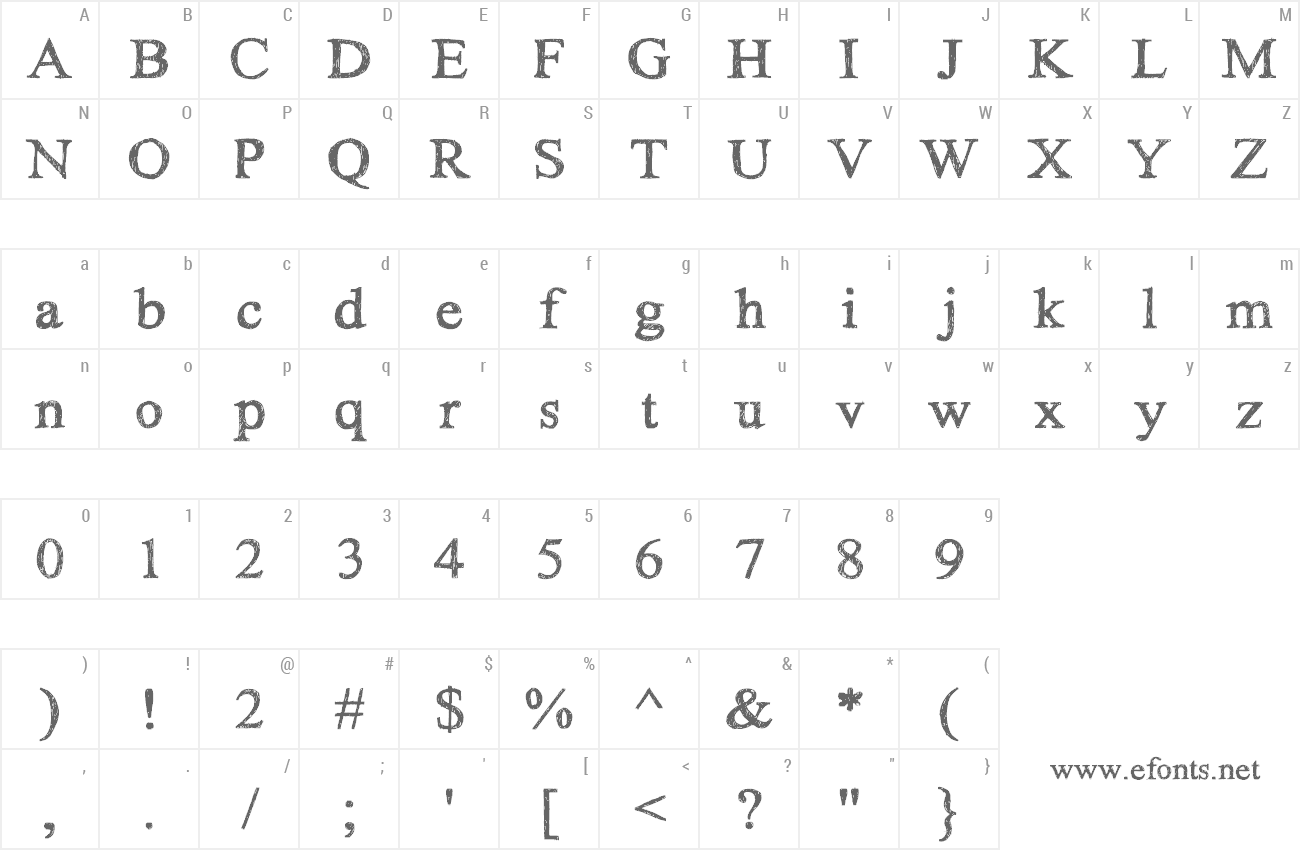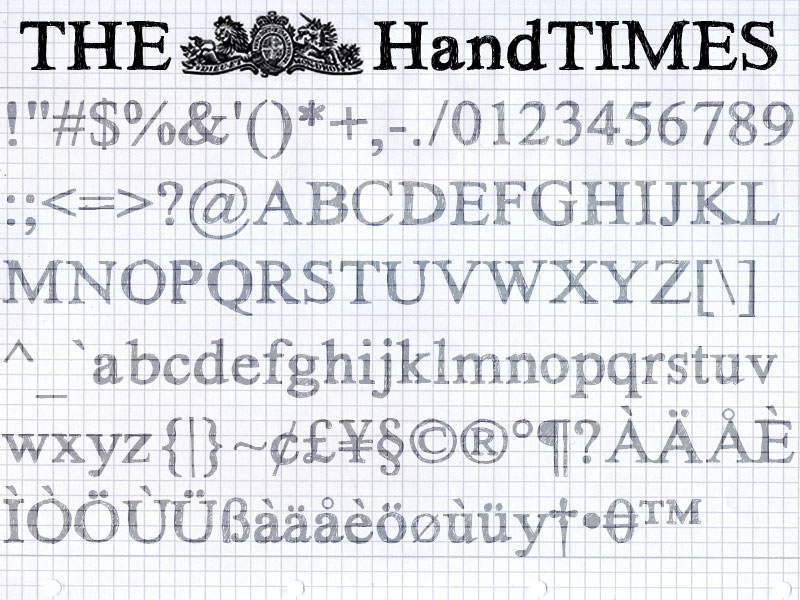
Headline Font / Display Font / Raw Handwritten Script Font "handTIMES" with 1 stlye (regular) & over 158 glyphs inkl. accents & € INFO If you want to use this font for commercial projects, please contact me: manuel.viergutz[at]gmx.de or donate an amount greater-than-or-equal EUR 15 / $ 19 (for commercial licence). I also appreciate it if you send me links /images of your (non)-commercial work featuring this font. |